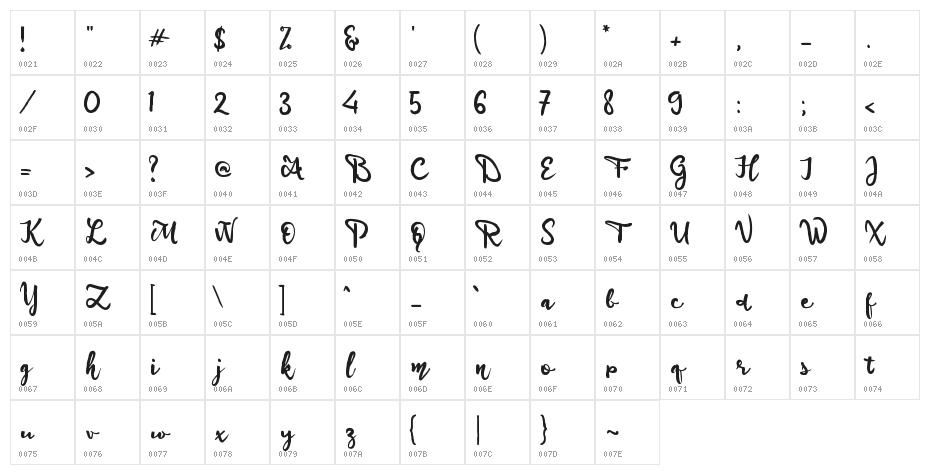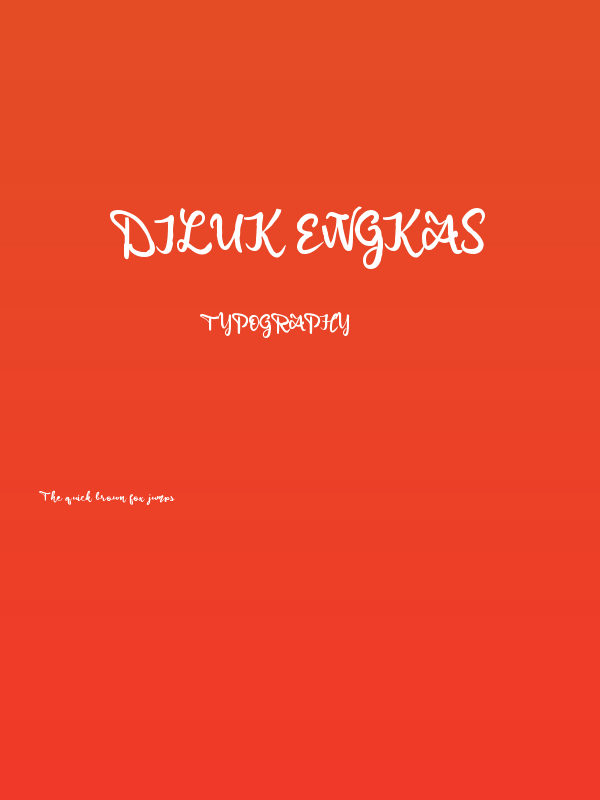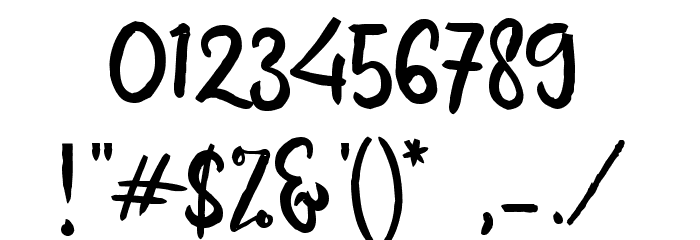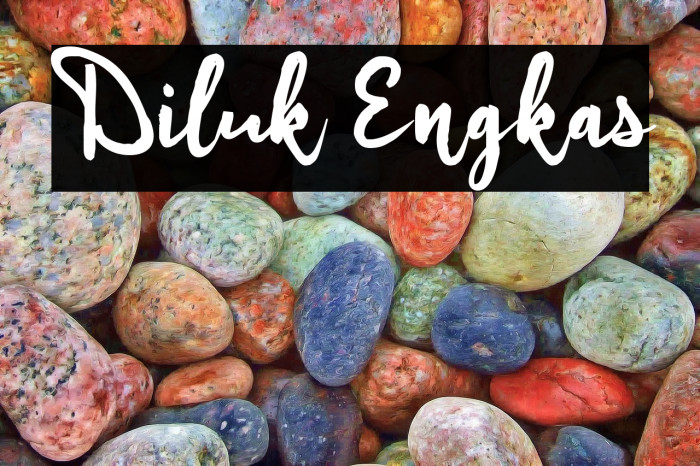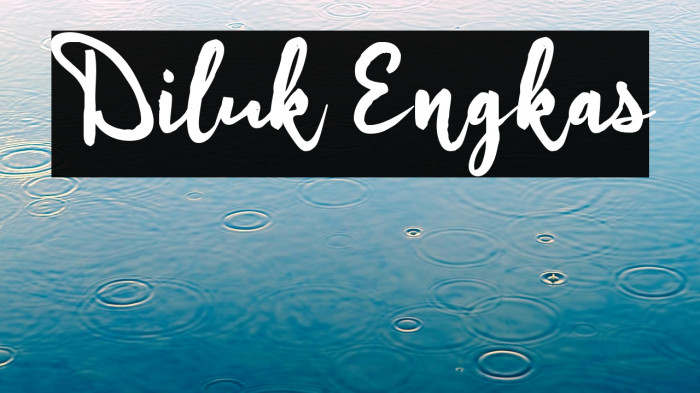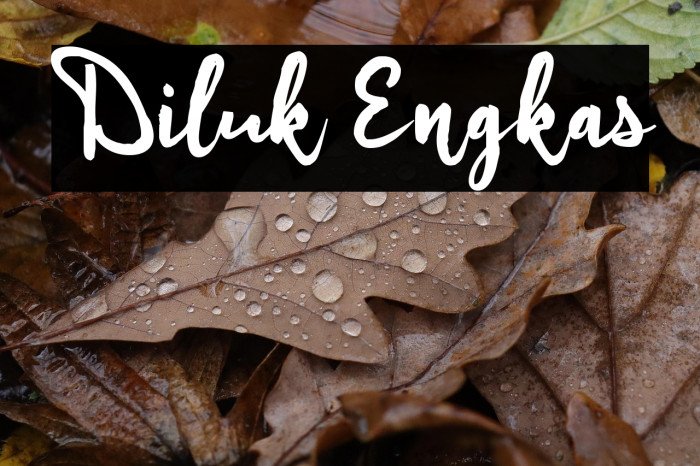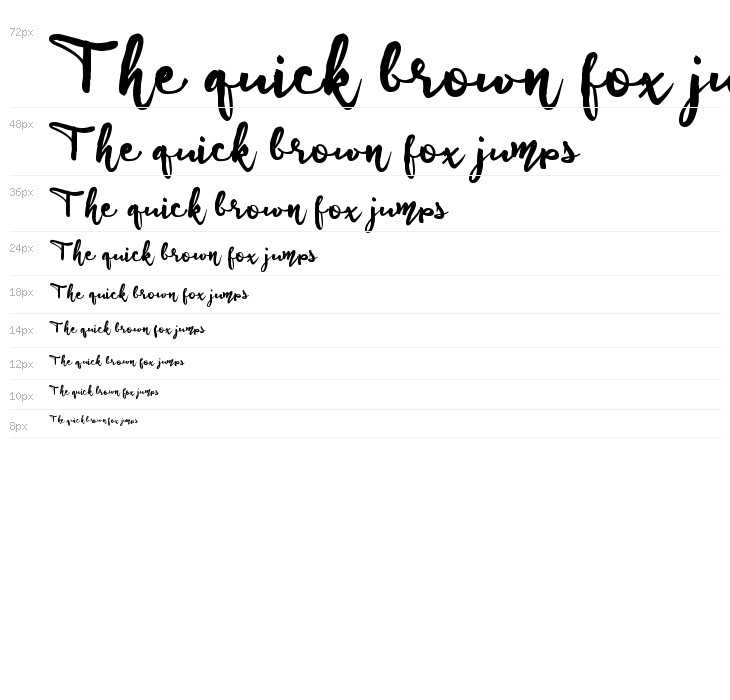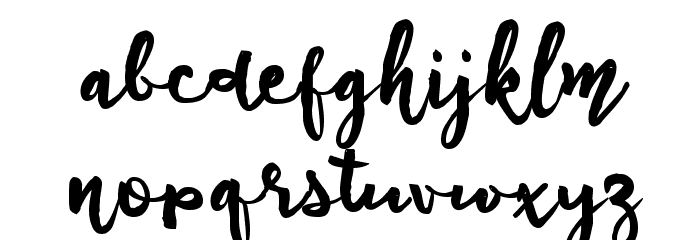
Diluk Engkas Font
Diluk Engkas Description
This font features a dynamic and expressive handwritten style, characterized by its flowing, cursive letterforms. The uppercase letters exhibit a playful and artistic flair, with varying stroke widths that add a sense of movement and energy. The lowercase letters maintain a consistent style, complementing the uppercase with their smooth curves and loops. Numbers and special characters are designed to match the overall aesthetic, ensuring a cohesive look across all text. The font's bold strokes and unique character shapes make it stand out, suitable for creative and informal designs.
| Use Case | Logos, Headlines, Posters |
| Proposed Projects | Ideal for greeting cards, invitations, branding projects, and social media graphics. |